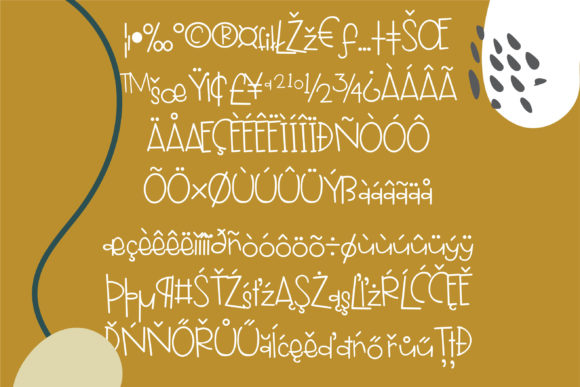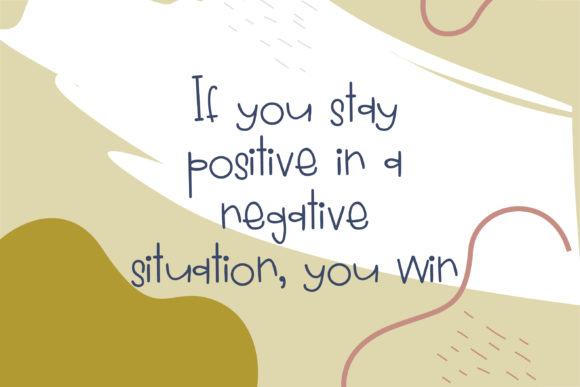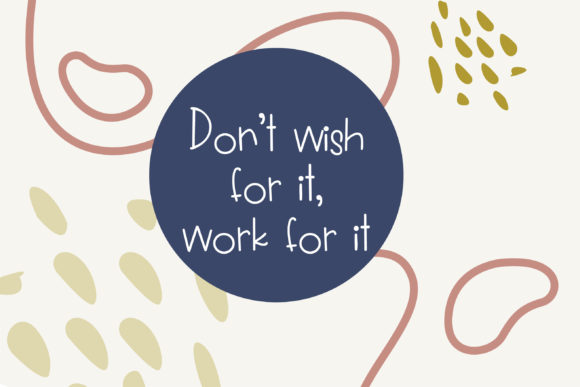
The Ultimate Guide to Clackhead Font: Elevate Your Designs with this Friendly Handwritten Font
I’ll never forget the time I was working on a project for a client who wanted a font that was ‘friendly, yet professional.’ I had spent hours scouring the internet for the perfect font, but nothing seemed quite right. That was until I stumbled upon Clackhead Font. It was like a breath of fresh air – simple, relaxed, and friendly, it was the perfect fit for my client’s project. In this article, I’ll share with you why Clackhead Font is an incredible asset to your font library and how you can make the most of it.
An Honest Review of Clackhead Font
What I Love About Clackhead Font ✨
- ✅ Simple and easy to read: Clackhead Font is perfect for body text, making it ideal for blogs, articles, and social media posts.
- ✅ Friendly and approachable: The font has a warm and inviting feel to it, making it perfect for designs that require a personal touch.
- ✅ Highly versatile: Clackhead Font can be used for a wide range of projects, from digital designs to print materials.
- ✅ Unique character: While Clackhead Font is simple, it has a distinct character that sets it apart from other fonts.
- ⚠️ Limited font weights: Clackhead Font may not have as many font weights as some other fonts, which can limit its use in certain designs.
- ⚠️ Not ideal for titles or headings: While Clackhead Font is great for body text, it may not be the best choice for titles or headings, as it can appear too plain.
How to Use Clackhead Font: A Practical Guide
The Backstory of Clackhead Font
Clackhead Font was designed with the intention of creating a simple, yet friendly font that could be used for a wide range of projects. The designer wanted to create a font that was easy to read and understand, yet had a unique character that set it apart from other fonts. The result is a font that is both versatile and charming.
| Font Name | Clackhead Font |
| Author | Illustration Ink |
| What is Clackhead Font? | Clackhead Font is a simple, relaxed, and friendly handwritten font. |
| Is Clackhead Font suitable for body text? | Yes, Clackhead Font is suitable for body text, as it is easy to read and understand. |